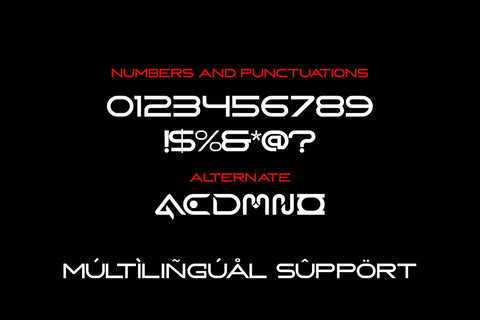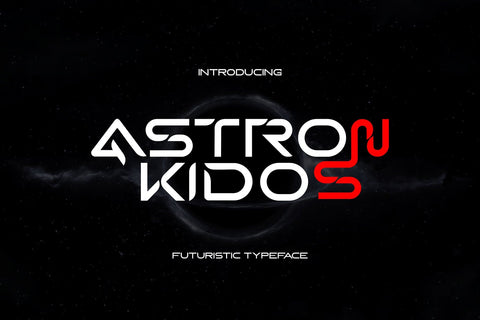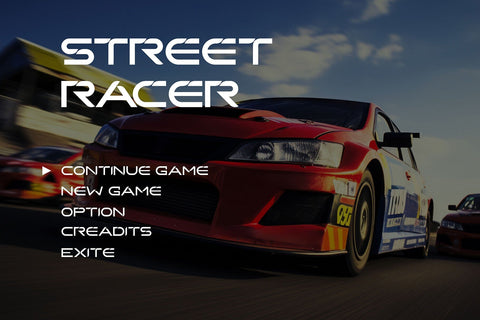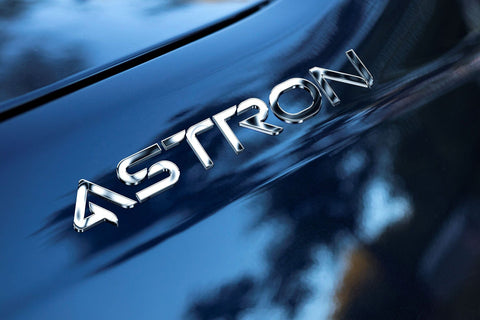
Astron Kidos - Clean Futuristic Font
Step into the future with Astron Kidos, a sleek and clean futuristic font designed to elevate modern design projects. Its sharp lines and contemporary aesthetics bring a sense of innovation and minimalism, perfect for creators looking to embrace the essence of tomorrow.
🪐 Futuristic Charm: Astron Kidos embodies cutting-edge design, ideal for technology branding, sci-fi themes, and digital interfaces. Its streamlined style ensures your work remains bold yet sophisticated.
🚀 Versatile and Adaptable: Whether used for logos, headlines, or creative layouts, Astron Kidos delivers seamless readability and a polished look that adapts effortlessly across mediums.
Ignite creativity and stay ahead of design trends with Astron Kidos, where the future meets clean, timeless typography.
- Light, Regular, Bold, Italic and Outline